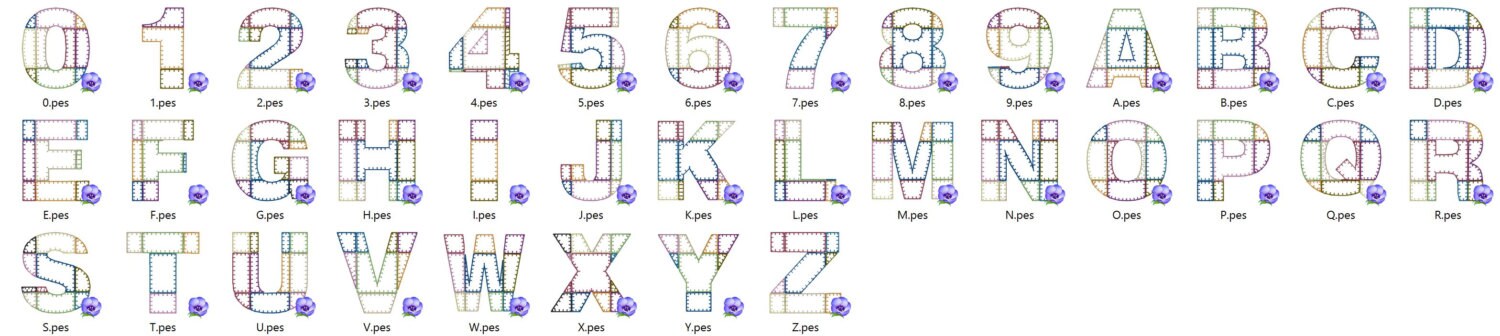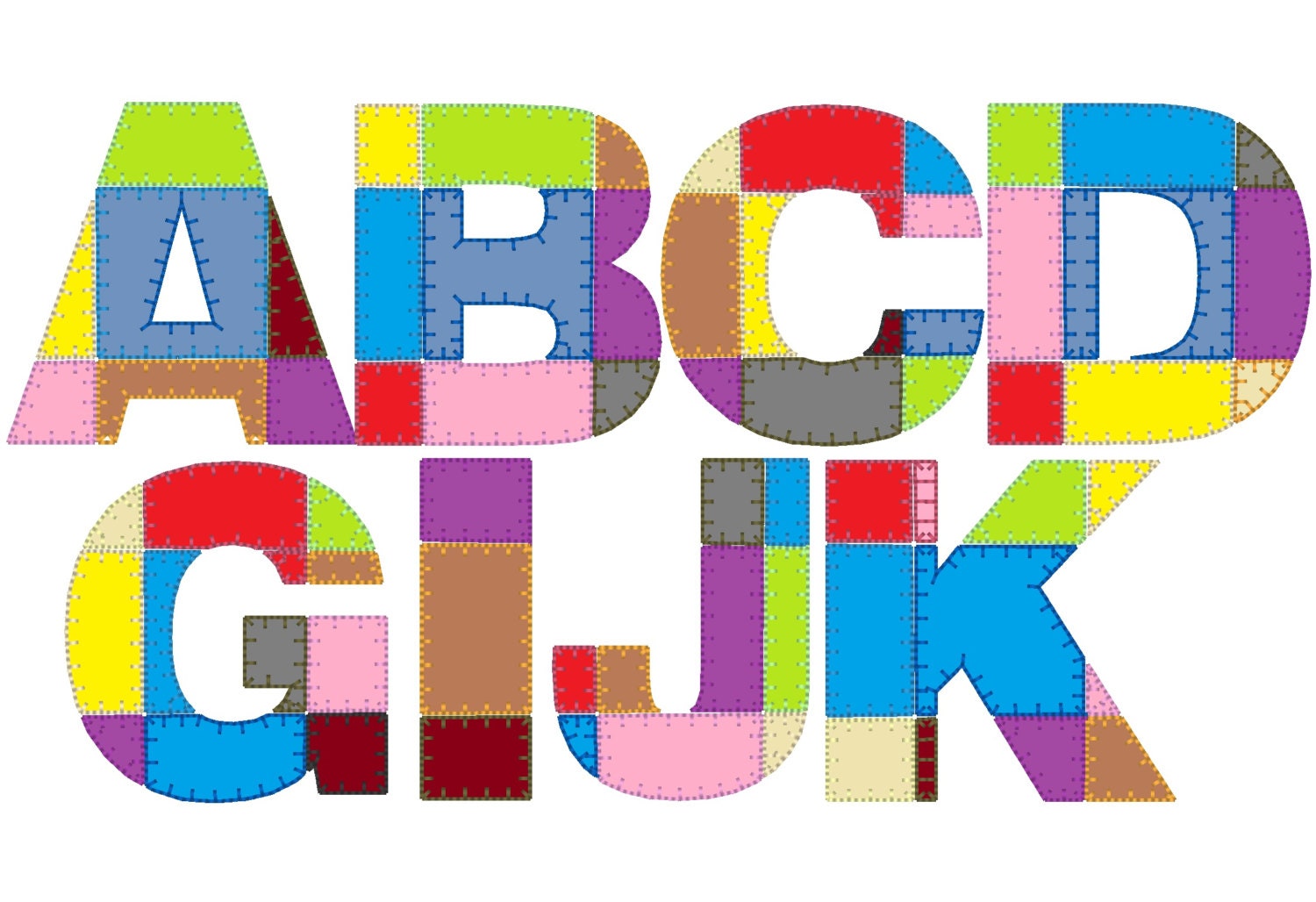
Classic grid Patchwork Font rag edges applique alphabet letters and numbers, machine embroidery applique designs for hoop 4x4, 5x7, 6x10
Classic grid Patchwork rag edges applique alphabet and numbers
All numbers 0 - 9
All capital letters A - Z
This patchwork applique has applique position lines for each section. When all position lines will be sewn next will be fabric applique nice tack down seams in the same colors, so you may arrange the needed color of the fabric in right place. Easy!
Use unneeded scarps and get awesome quilts, birthday shirts and study materials.